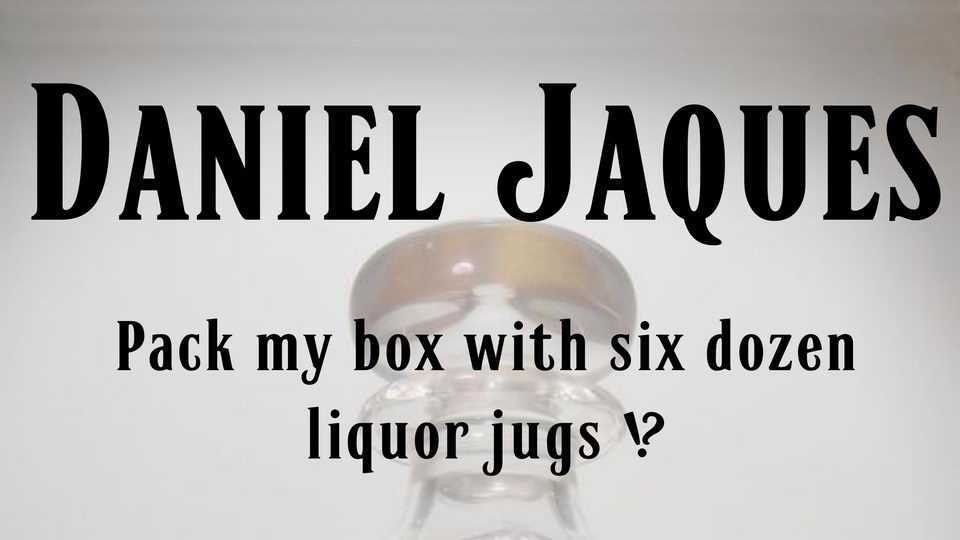
Download Daniel Jaques font, a decorative display typeface for signage and advertising. It has too much style to be comfortable for reading long passages of text in Daniel Jaques but it is quite acceptable if the purpose is to attract attention.
Designer: Paul James Miller